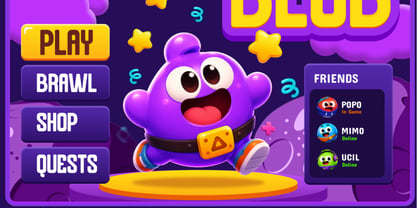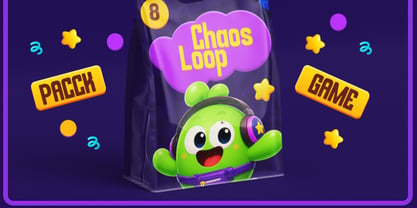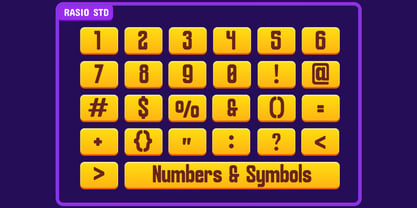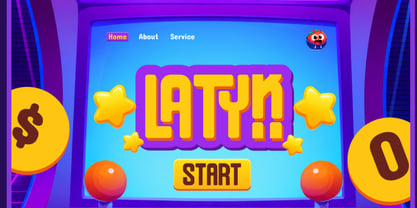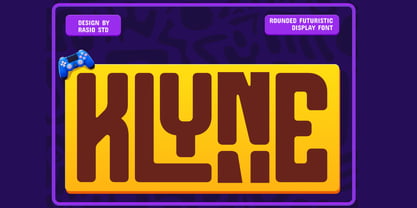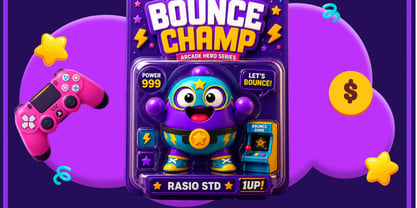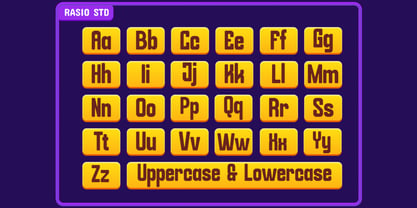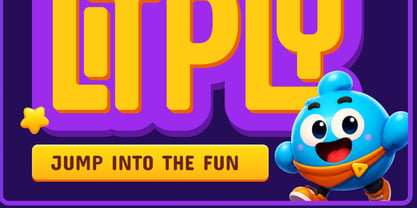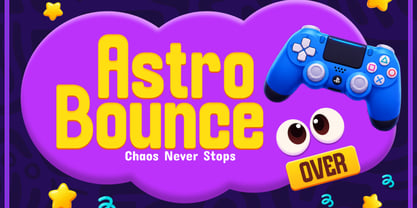
Klyne
The Klyne Font Family was designed by Fajar Indra and published by Rasio Studio. Klyne contains 1 styles. More about this family
Klyne is a bold rounded futuristic display font featuring thick geometric forms, smooth corners, and playful retro-tech styling. The typeface includes uppercase, lowercase, numerals, punctuation, designed for eye-catching visual impact. Its chunky structure and arcade-inspired character shapes create a fun gaming atmosphere while maintaining strong readability for headlines and display typography.
Relevance & Use Cases is highly relevant for gaming content, esports branding, arcade-style posters, stream overlays, YouTube thumbnails, toy packaging, children’s branding, and futuristic digital campaigns. Its rounded bold appearance works perfectly for projects that need a playful, energetic, and highly visible typographic style.